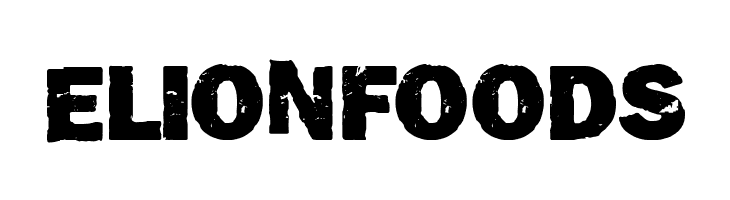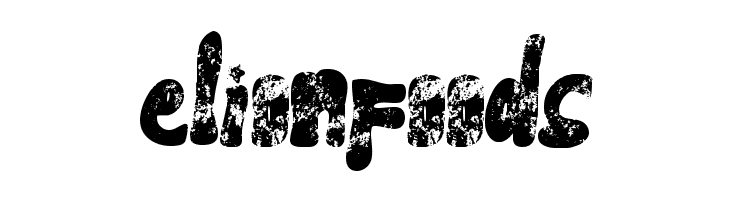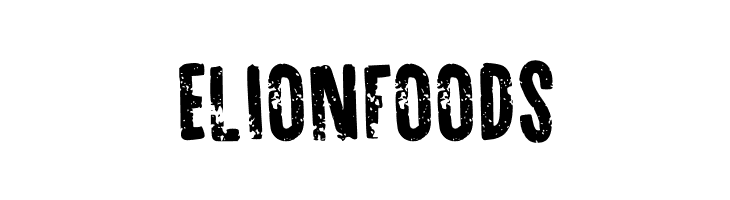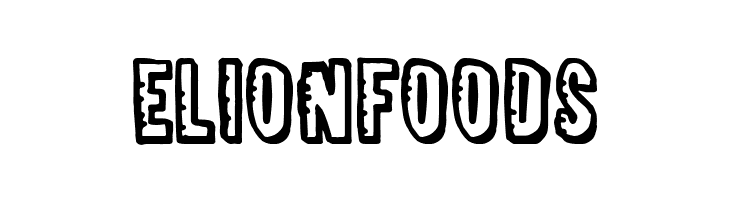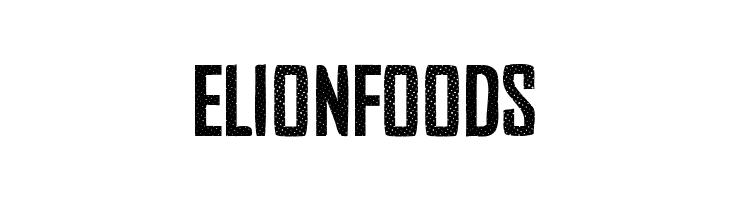
A bold, distressed font with a gritty, weathered texture.
A bold, distressed font with a rugged, vintage appearance.
A bold, distressed font with a grunge, vintage style and textured appearance.
A bold, distressed font with a rugged, urban style.
A bold, distressed font with a rugged, vintage appearance and thick, rounded strokes.
A bold, distressed font with a rough, textured appearance for a vintage feel.
A bold, distressed font with a rugged, urban aesthetic.
A bold, textured font with a gritty, industrial style.
A bold, distressed font with a gritty, rugged texture.